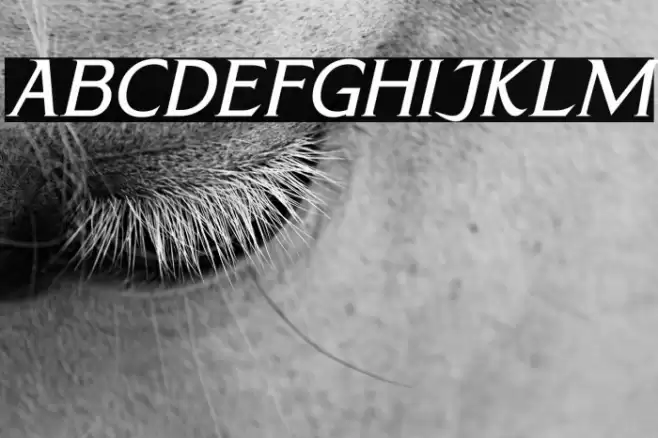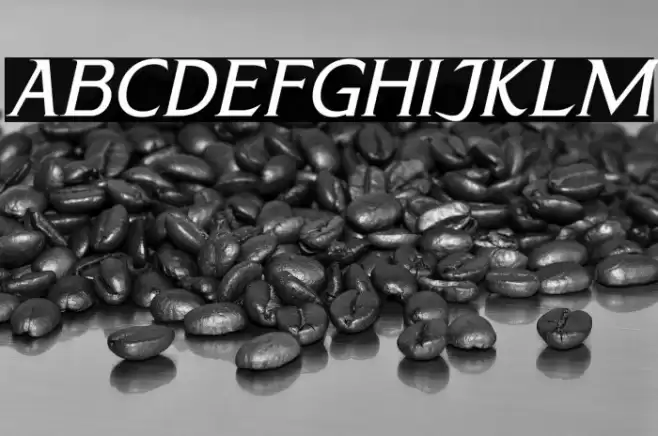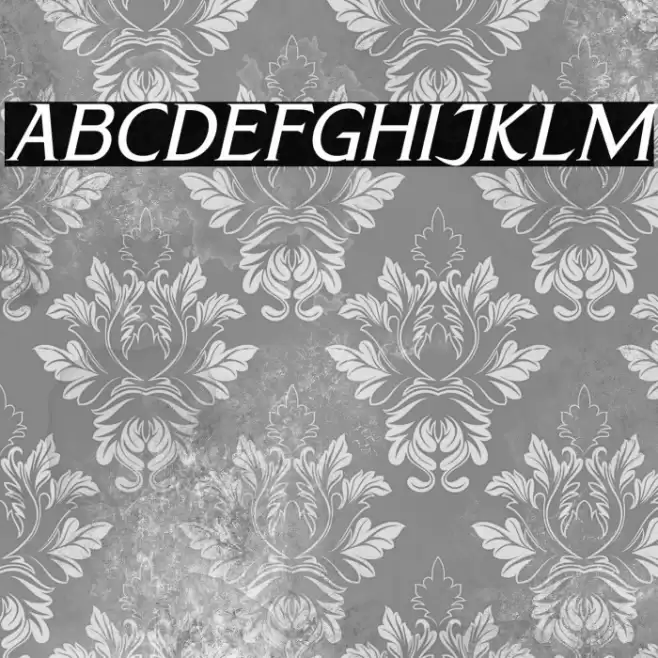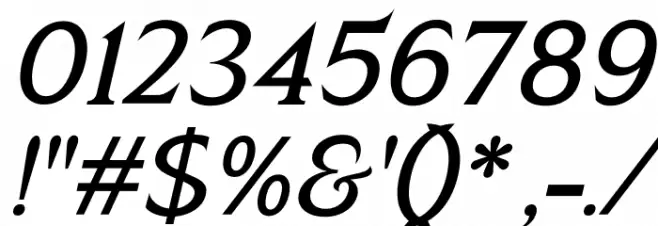
CALLIMBA Italic Font
CALLIMBA Italic Description
This font exhibits a classic italic style with elegant, flowing curves and a slight slant, giving it a sophisticated and dynamic appearance. The uppercase letters are tall and commanding, while the lowercase letters maintain a consistent and harmonious flow. The numerals are well-proportioned, complementing the overall aesthetic. Special characters are designed with the same attention to detail, ensuring a cohesive look across all glyphs. The font's design is both timeless and versatile, making it suitable for a variety of applications.
An elegant italic font with flowing curves and a classic style from Uncategorized fonts.
- Overall Style: Classic